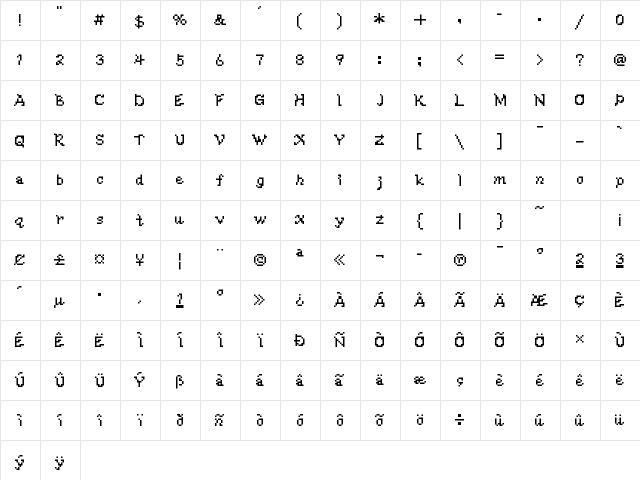
WWareTypeA Regular
| Designer | Caveras / Cliff Modes |
Design Context for WWareTypeA Typeface
WWareTypeA takes a measured approach to typography — its balanced proportions and neutral character make it a reliable workhorse for both digital and print work.
Pro Tip: Pair WWareTypeA with a font of contrasting weight or personality to build a more expressive typographic hierarchy.